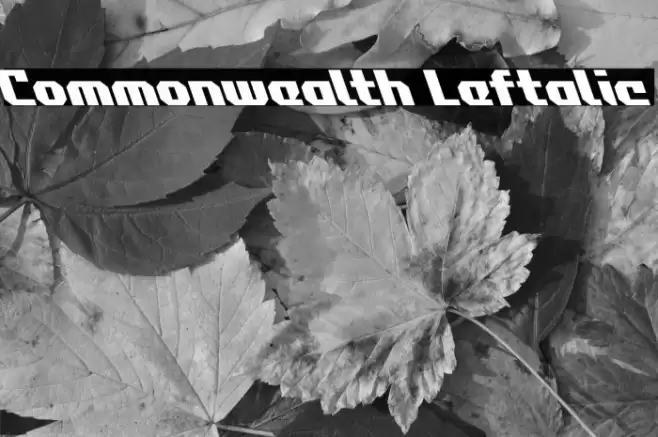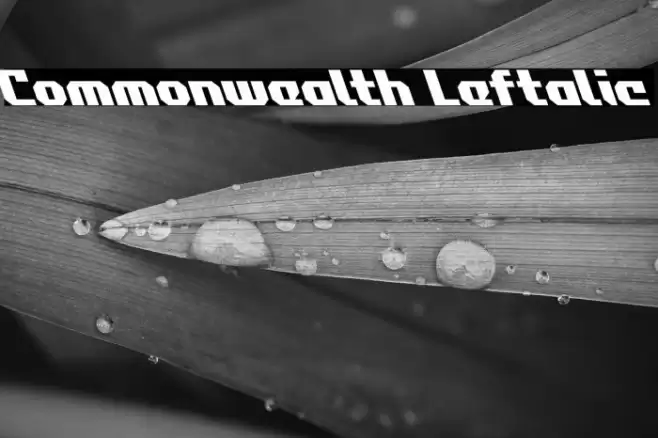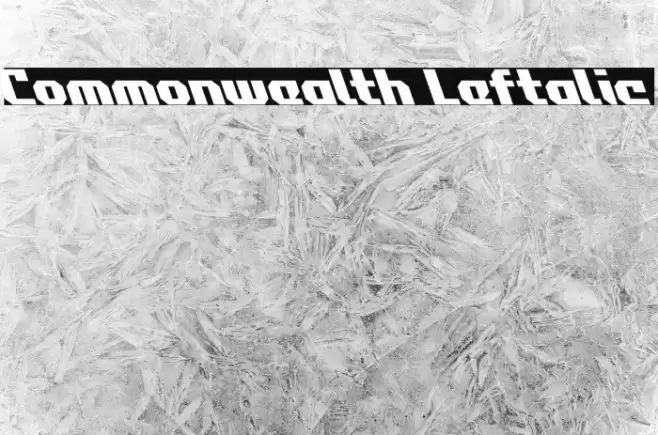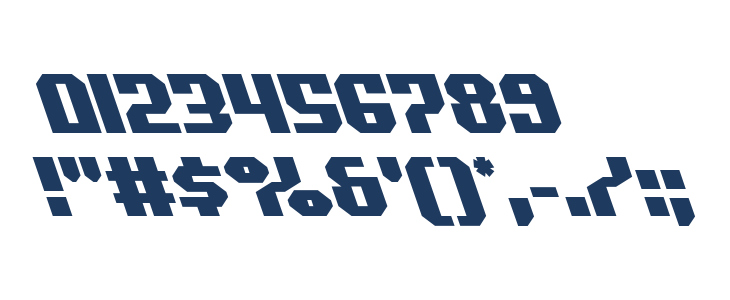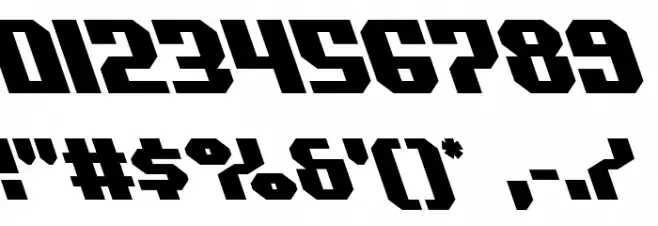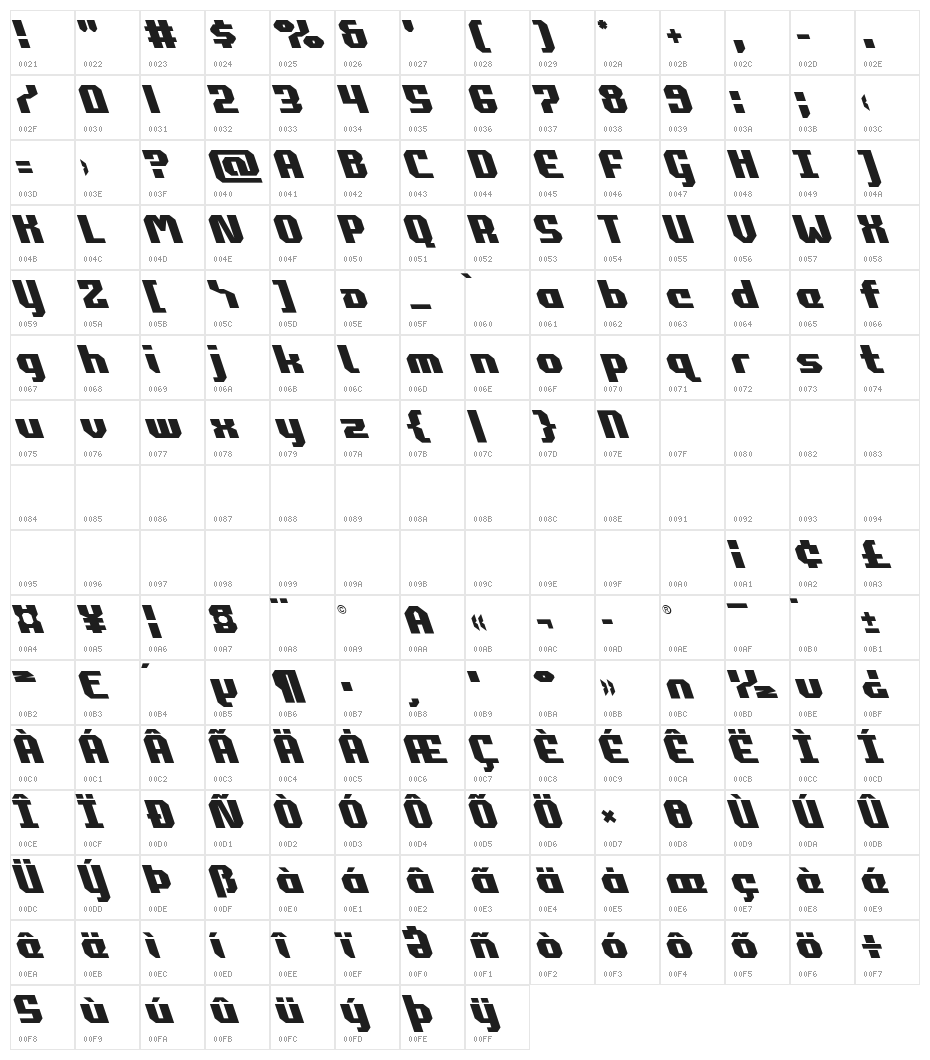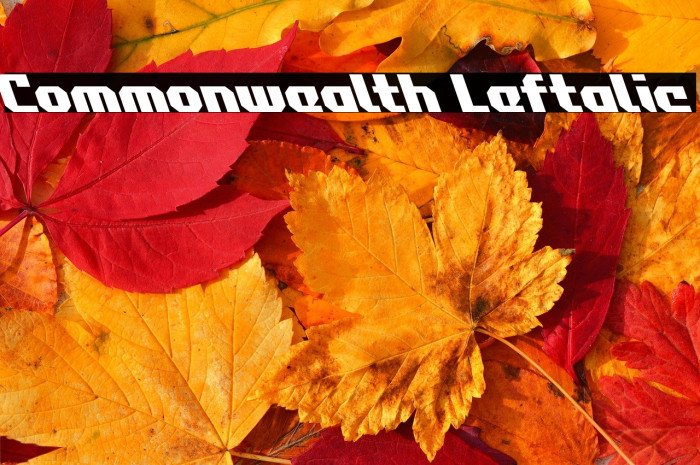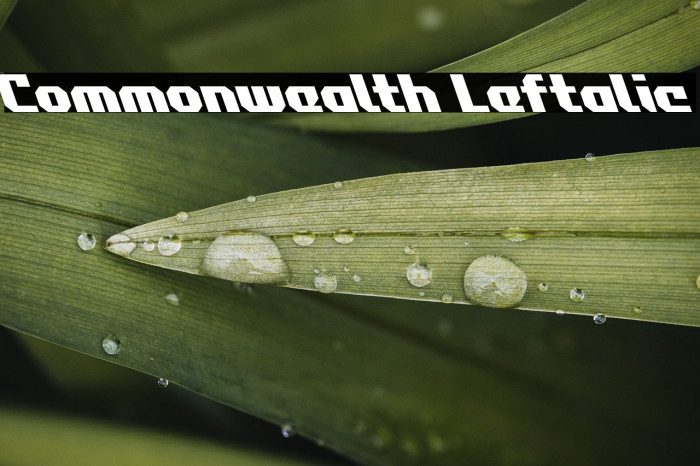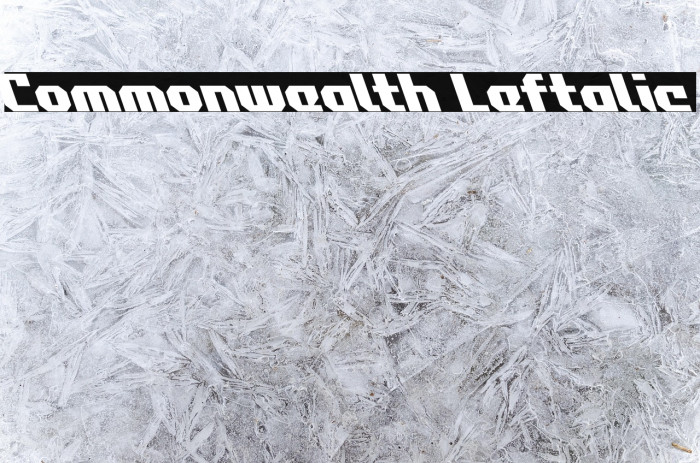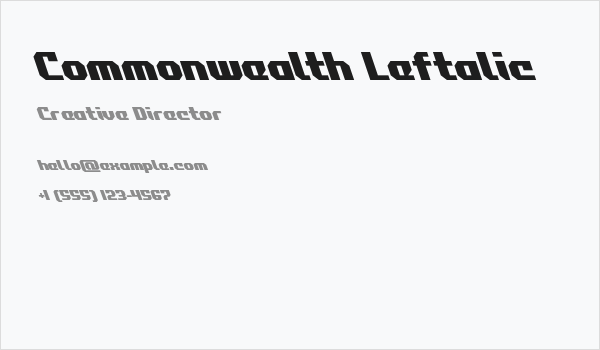
Commonwealth Leftalic Font
Commonwealth Leftalic Description
This font features a bold, geometric design with a distinct angular style. The characters are heavily stylized with sharp edges and a consistent slant, giving it a dynamic and modern appearance. The uppercase and lowercase letters maintain a uniformity in their angular construction, while the numbers and special characters follow the same design principles. The overall look is bold and impactful, making it suitable for attention-grabbing headlines or branding that requires a strong visual presence.
A bold, angular font with a modern, geometric style from Uncategorized fonts.
- Proposed Projects: Ideal for branding, posters, and headlines that require a bold and modern aesthetic.